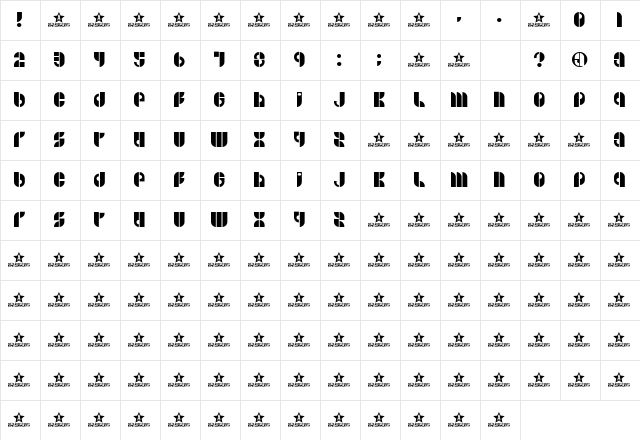
B SIDE BY BILLY ARGEL BLOCK Free Font
B SIDE BY BILLY ARGEL BLOCK
Style: BLOCK
Foundry: BILLY ARGEL
Designer: Billy Argel
Complete B SIDE BY BILLY ARGEL BLOCK glyph index. Displaying only characters natively supported by B SIDE BY BILLY ARGEL BLOCK font.
Design Context for B SIDE BY BILLY ARGEL
B SIDE BY BILLY ARGEL is a composed and adaptable typeface that performs quietly and consistently across a wide range of design contexts.